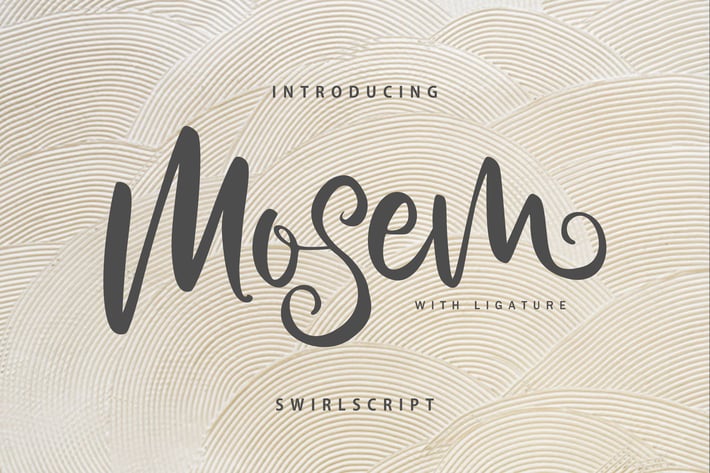
Mosem | Swirl Script Font
Mosem | Swirl Script Font with a calligraphy style, So beautiful on invitation like greeting cards, branding materials, business cards, quotes, posters, and more!